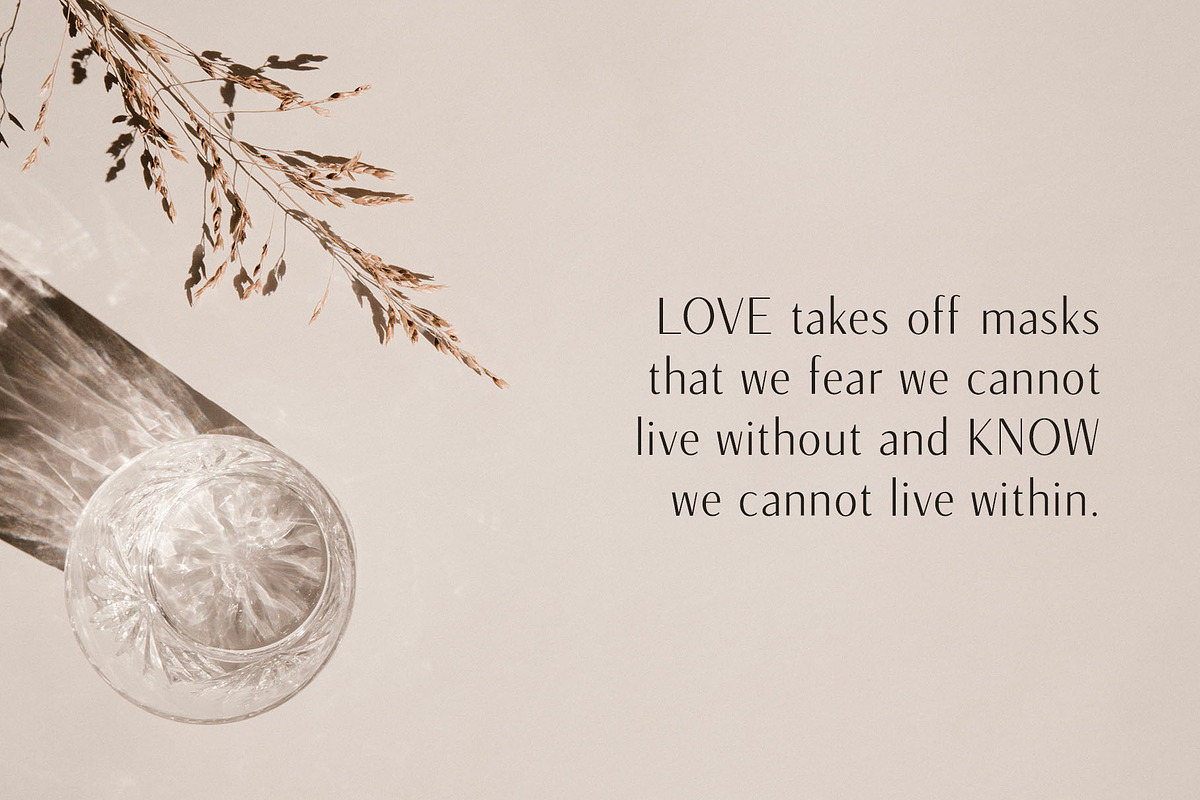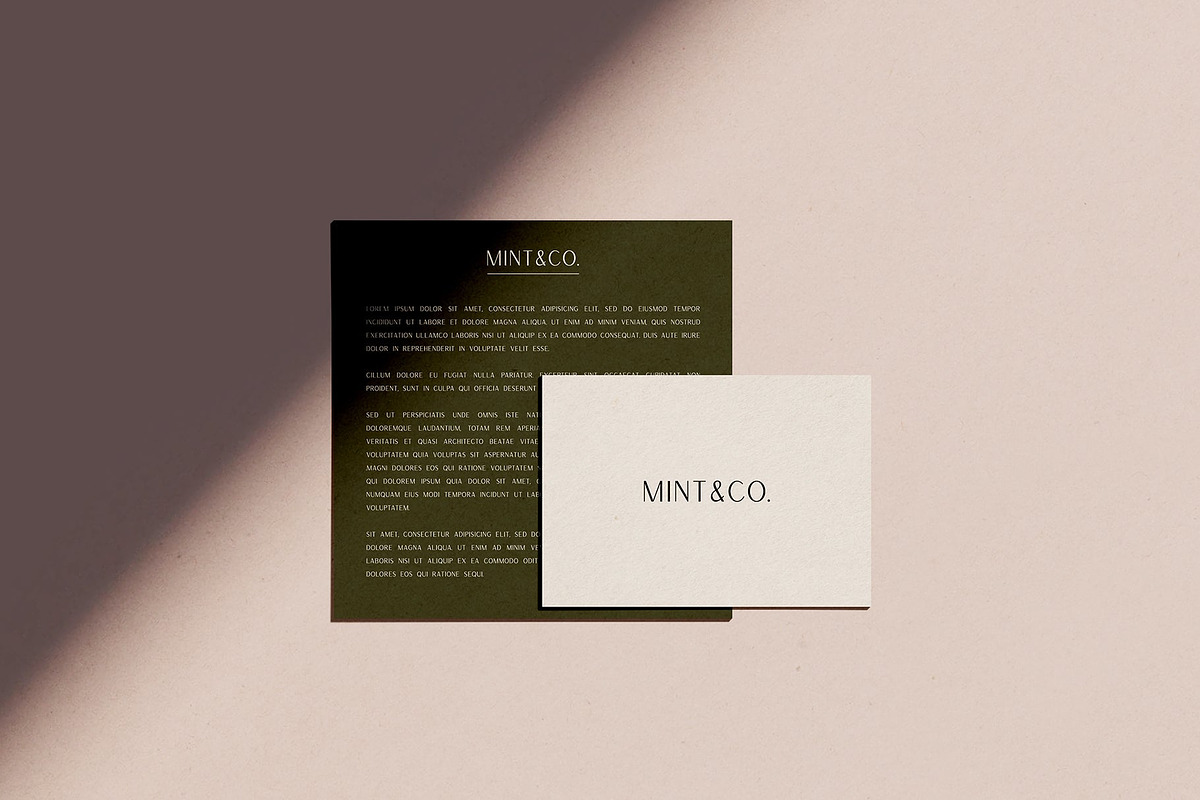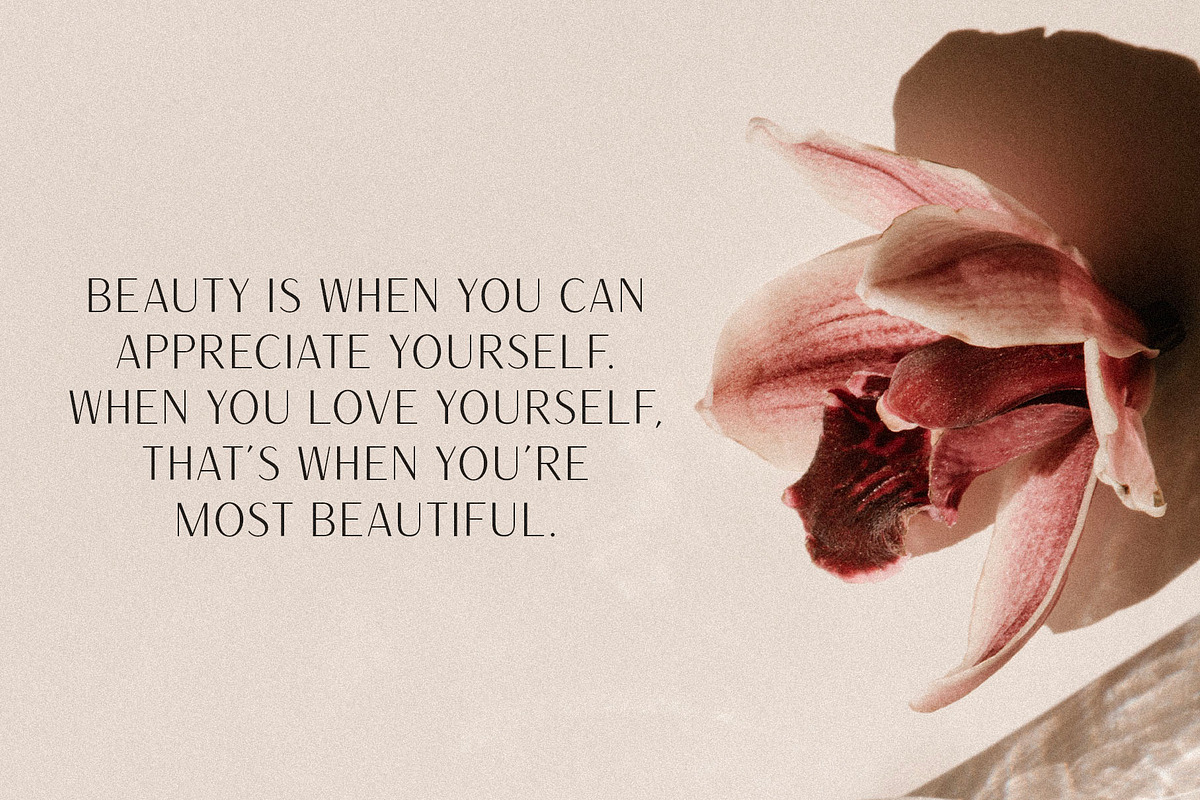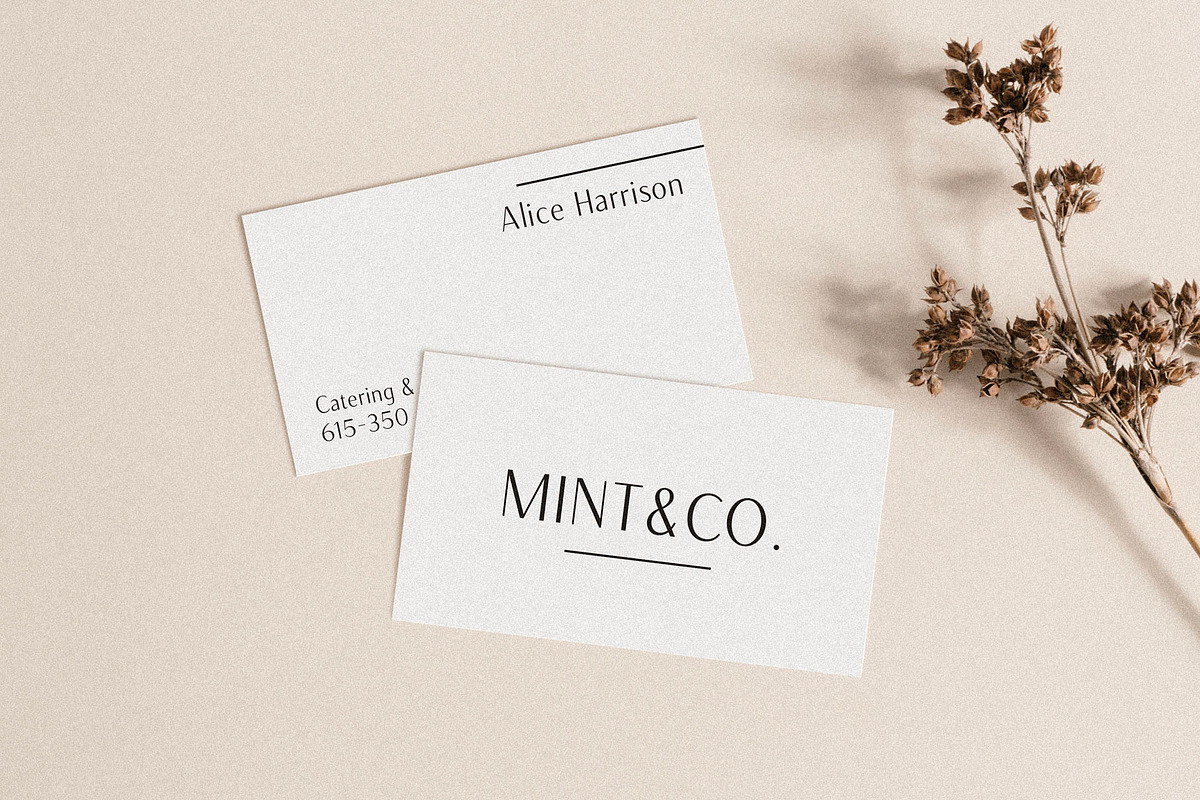
Versailles Font
Versailles is a timeless sans serif with the classiness of a serif font. With smooth and clean lines, and just a touch of contrast, it works beautifully for logos, branding, and web headings. Designed for optimum legibility, its clean, geometric look is perfect for logotypes, headers, titles and brochures.
• Uppercase & lowercase letters
• Numbers & punctuation
• Extended Non-English support